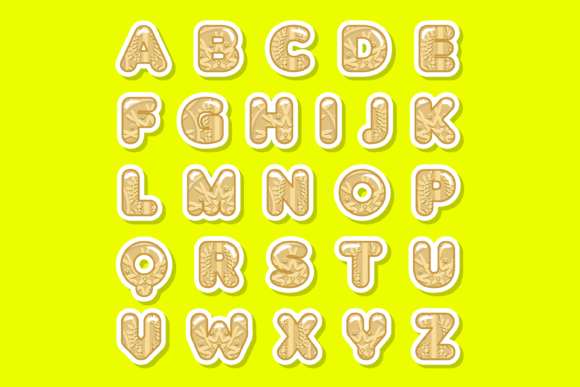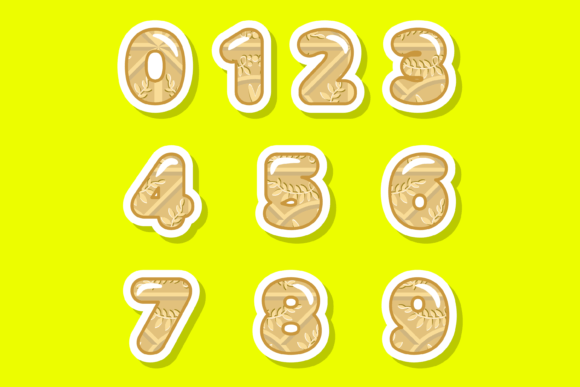
Introduction to Gold Leaf Font
Gold Leaf is an incredibly cool color font designed in an Embossed Leaf style.
Whether you use it for custom designs, DIY crafts, or just any creation that requires a lovely touch, this font will be an amazing choice Note.
Key Features of Gold Leaf Font
Why Choose Gold Leaf Font?